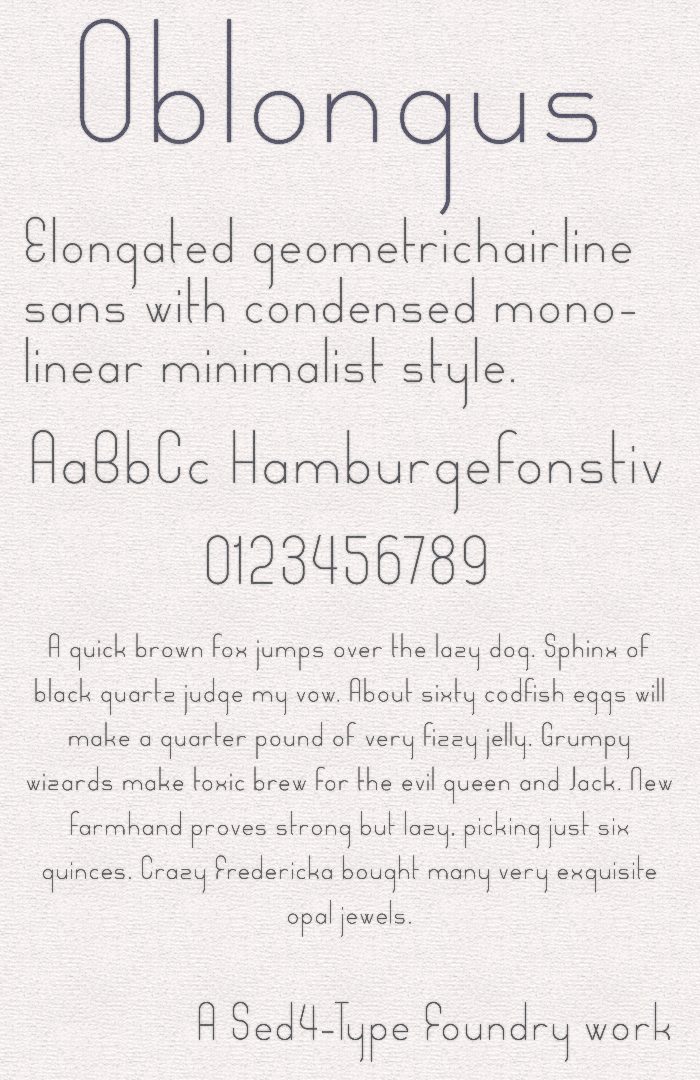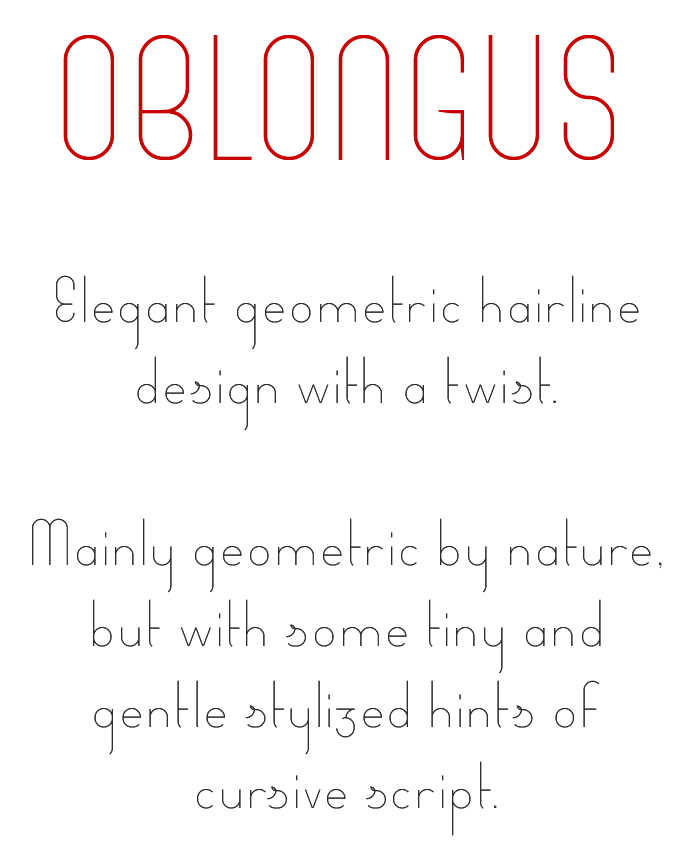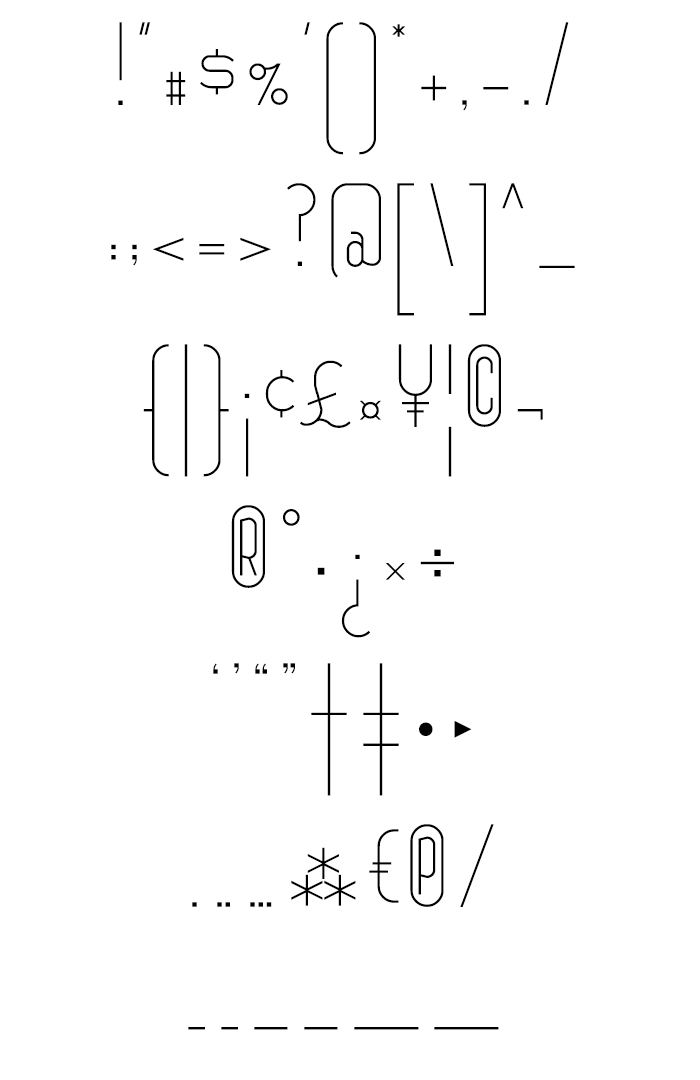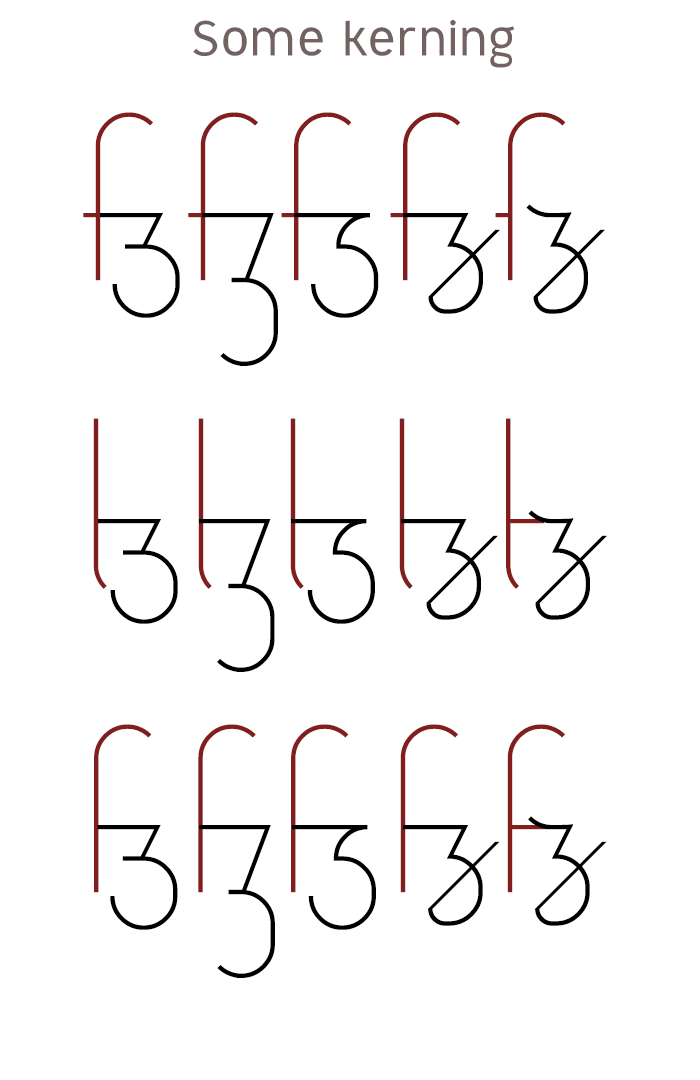
• OBLONGUS - Modern light weight monolinear geometric sans
Light weight monolinear geometric sans.
One of the most striking features is it's overall well ventilated, light weight and spacious appearence. Some other key features are the glyph's elongated ascenders and descenders. These give the font a somewhat condensed and stretched look. An additional side effect of this is the extra empty vertical space above and bellow a line of text. Contributing even some more to the already ventilated character of the design.
Another key feature are the stylish rounded forms and novel long spurs. I tried to find elegance in it's simplicity, the decorative elements, turns and twists were all done in a very gentle but clearly present manner. All working together these elements give the font a very welcoming, friendly and laid-back vibe. Extra's, such as glyph alternatives will help spicing things up even a bit more.
So, while trying to remain simplistic in nature the font does have some nice stylistic appeal for sure.
▪ Basic-Latin, punctuation & symbols
▪ Lining & non-lining (oldstyle) numerals
▪ Glyph alternatives
▪ Partial kerning
Basic font created
Changed lowecase 'w' with a wider version
Made cursive style lowercase 's' & 'tailed z' glyphs as default style
Added multiple sets of numerals styles
- Lining (default style)
- Non-Lining (Oldstyle)
- Double Struck
(Slight different, extra decorative, more leaning towards classic style)
Included random stylistic glyph alternates, special characters & ligatures
How about a wider w?
@elmo: I changed it ;-)
I didn't like how the two strokes intersect in the middle with the wider version, the cross section became too small/narrow, so I changed that slightly as well. New version having only one stroke continuing. And in addition I also included another version with the strokes cut completely.
Lolol, now I can't choose on which to go with !
Personally I prefer your third w (no crossing strokes).
Absolutely love the cursive-styled lowecase "s"
This is a very "diaphanous" font, with a lot of "air" in its glyphs, so your third "w" relaxes the words in which it appears, and that seems appropriate to me, but the choice is yours, and it will surely be fine. ?
Cursive lowercase 's' is relocated to the apropriate unicode slot as glyph alternative option.
@elmoyenique: Yes I think you are right!
- Another big update was made today -
▪ Extended Latin
▪ Accents added
▪ Extra glyph alternatives
▪ More characters and symbols added
▪ Moved some stuff around to better unicode locations
As you can see there is a double 'Small Eth' character with tiny question mark placed underneath, this is only temporarily untill I decided which one fits the design parameters best, but I'm not sure yet, and probably needs further extra testing.